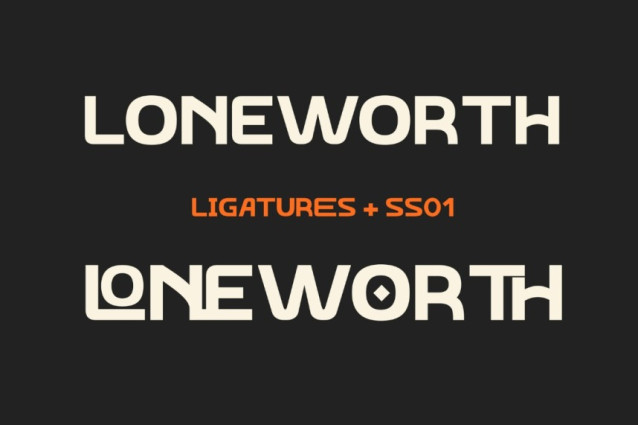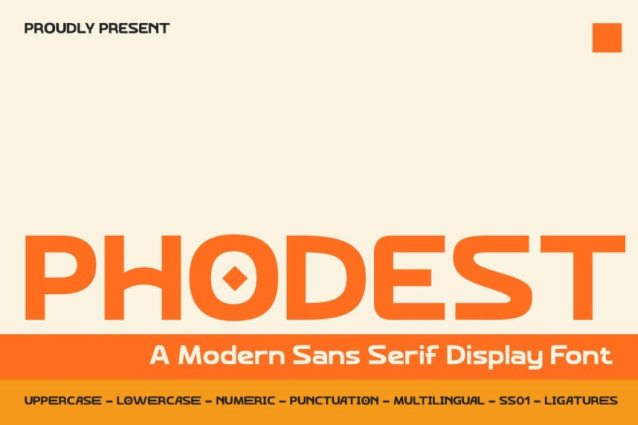
Phodest Font
Phodest Font is a modern sans serif display font designed to make a bold and confident statement. With its clean structure, strong letterforms, and contemporary style, this font is perfect for headlines, branding, logos, posters, and digital designs that demand attention. Phodest delivers a sleek, modern look while maintaining excellent readability, making it a powerful choice for standout visual identities and modern creative projects.